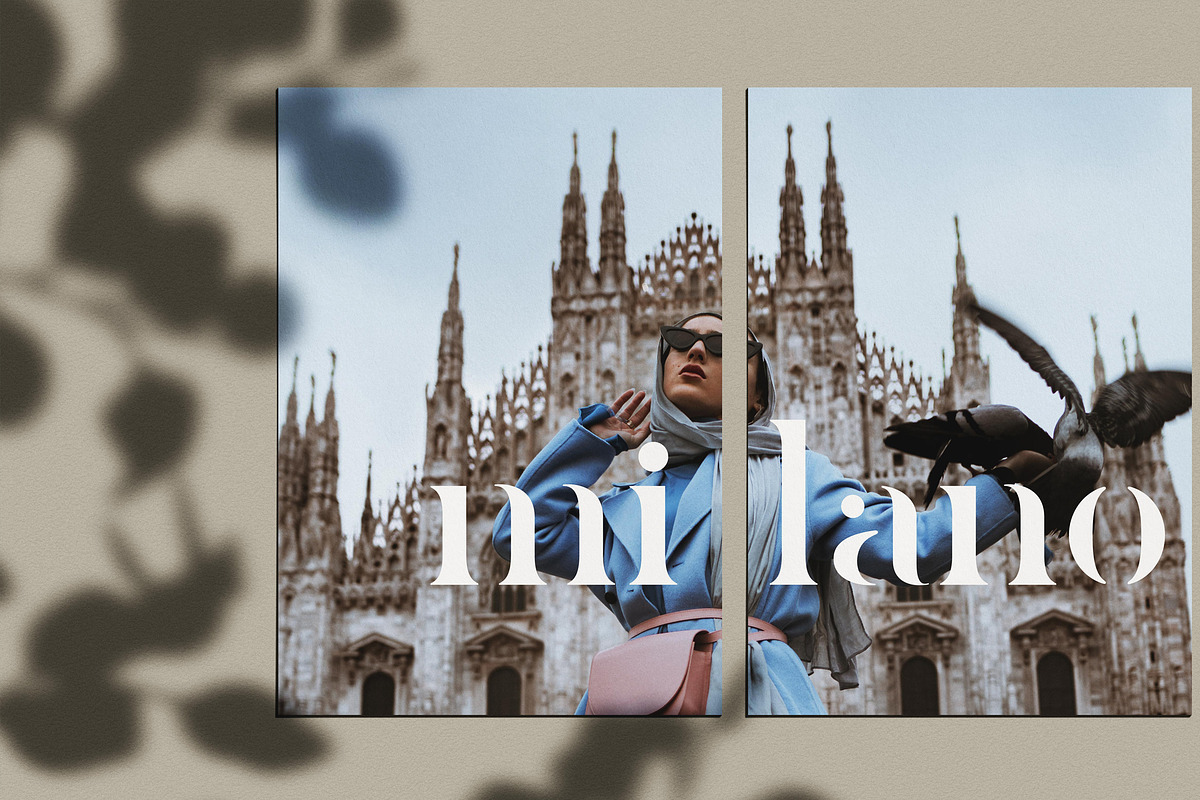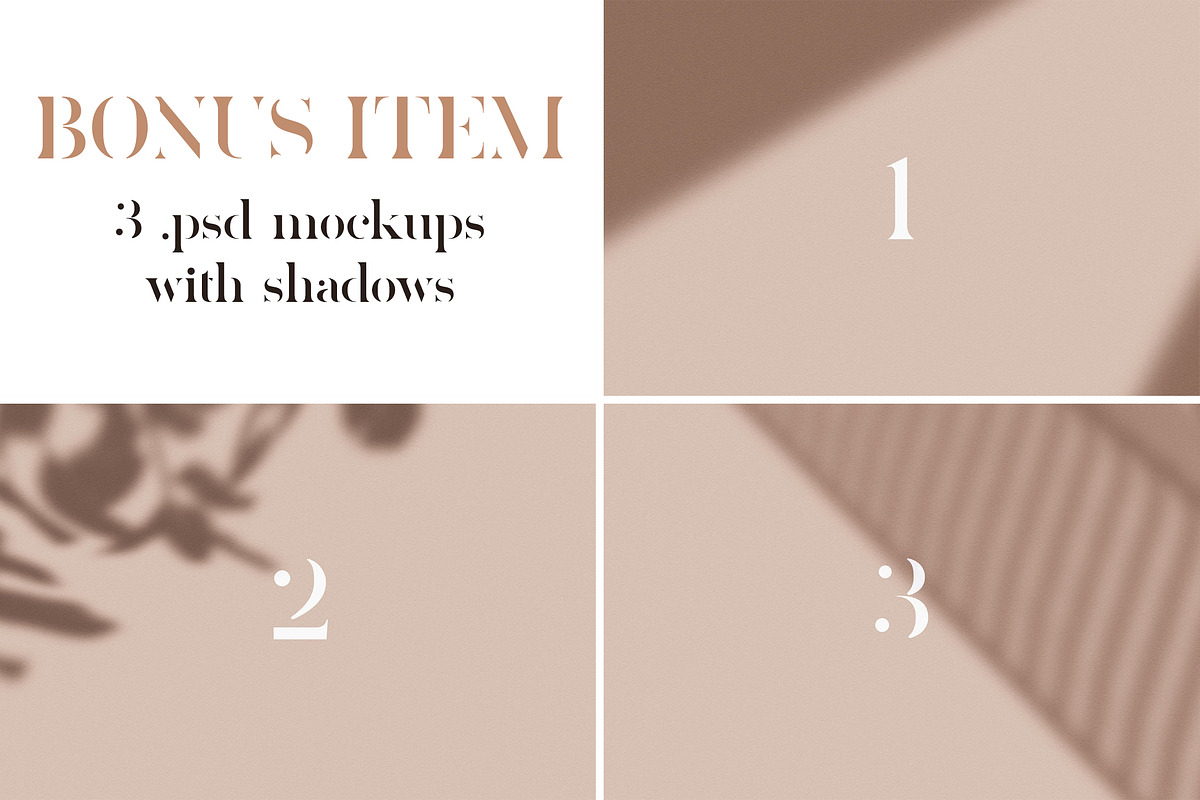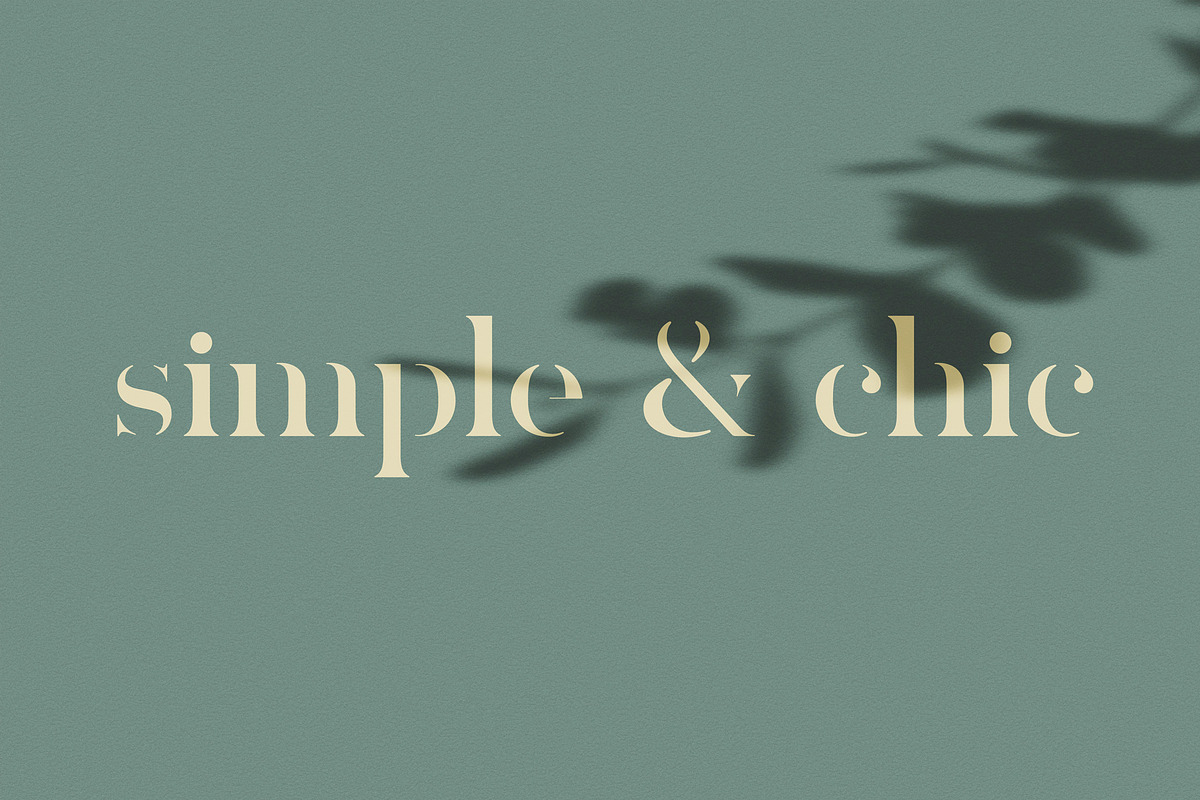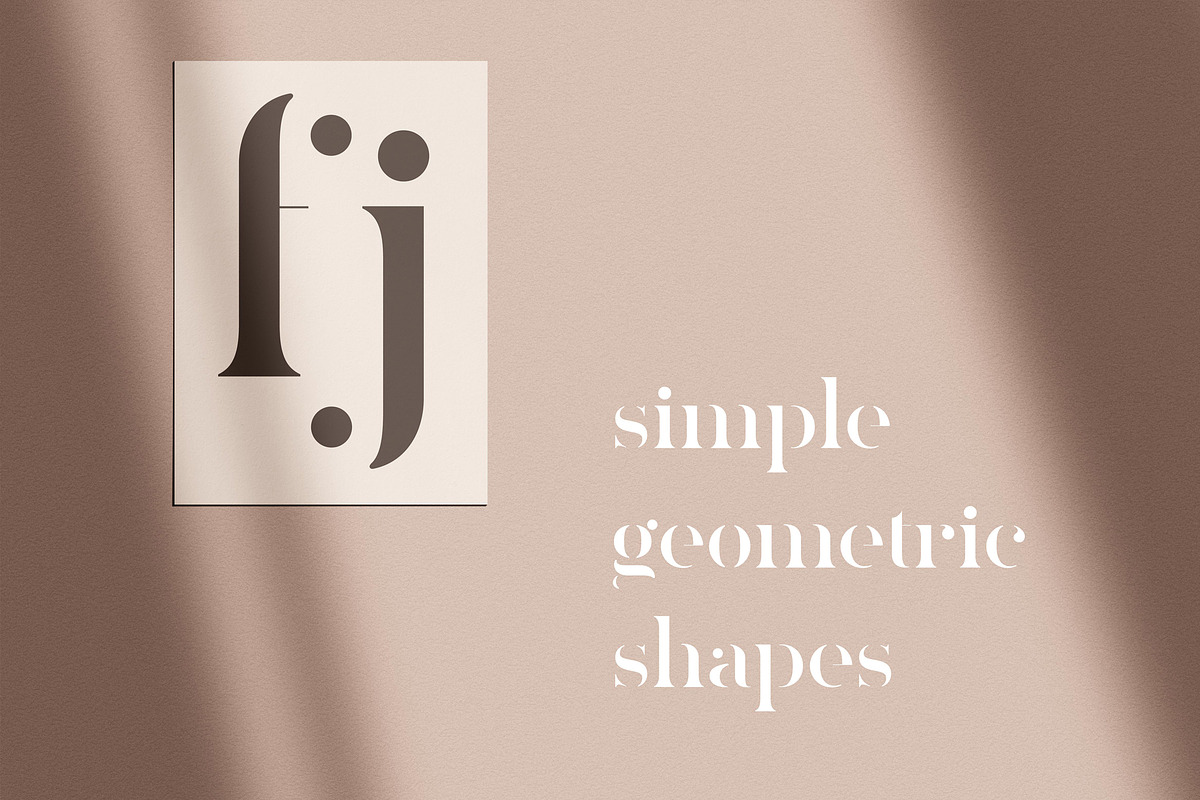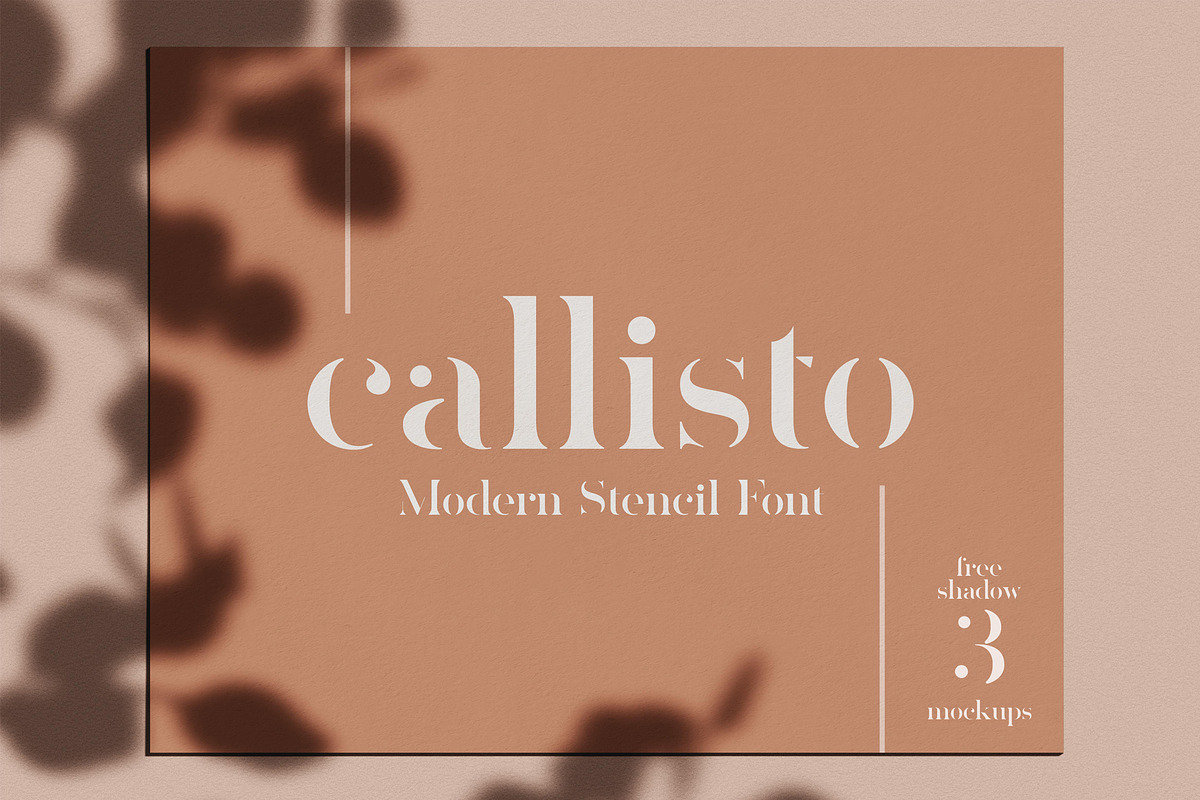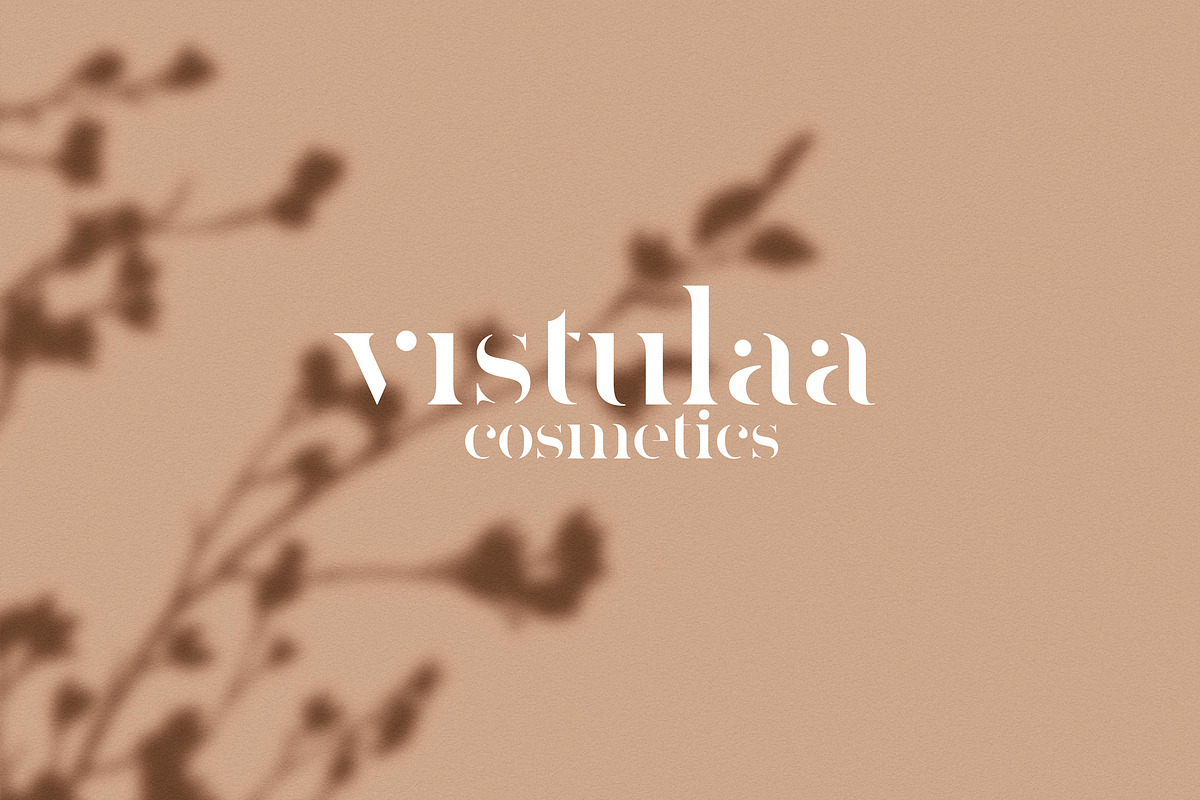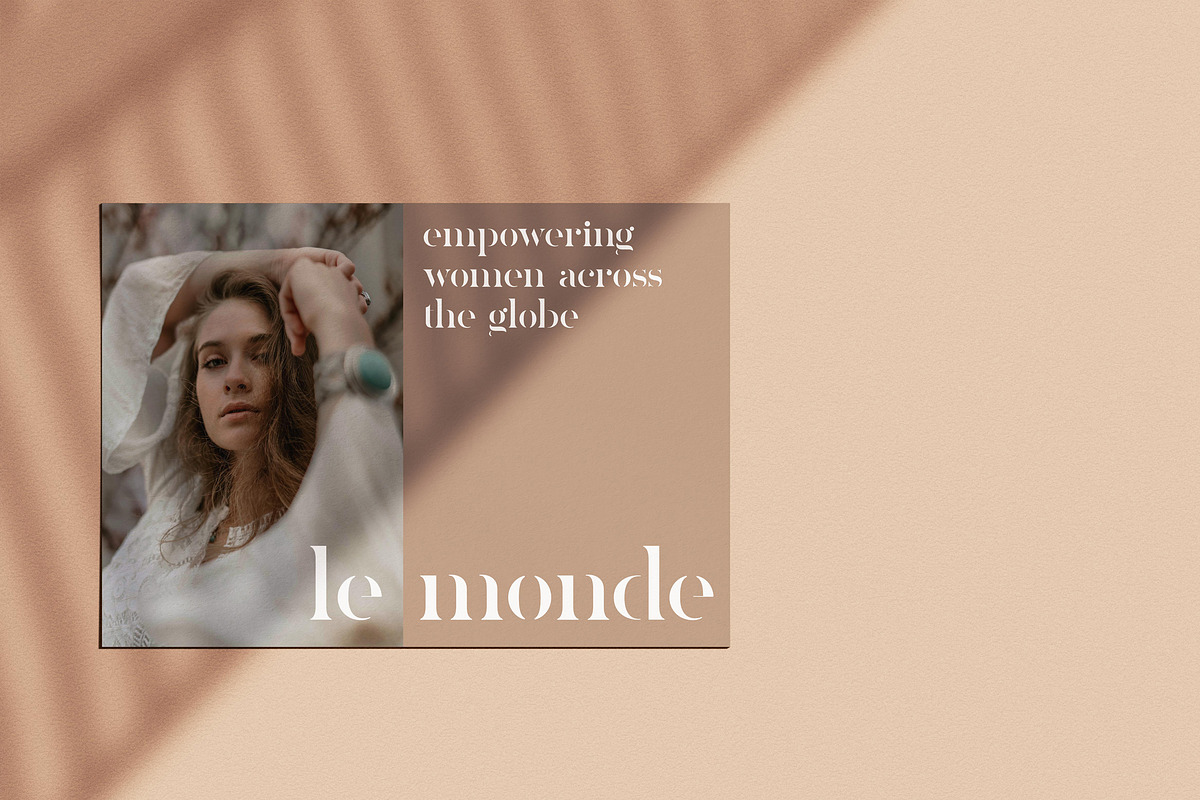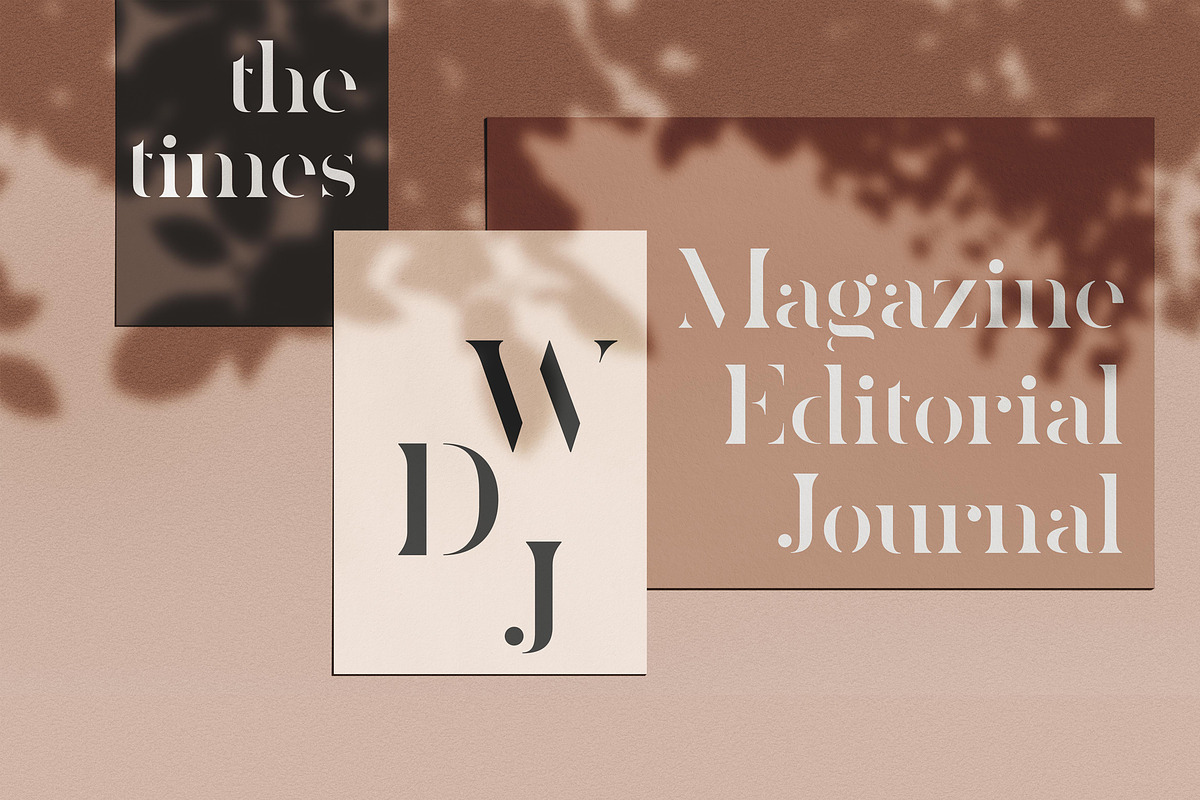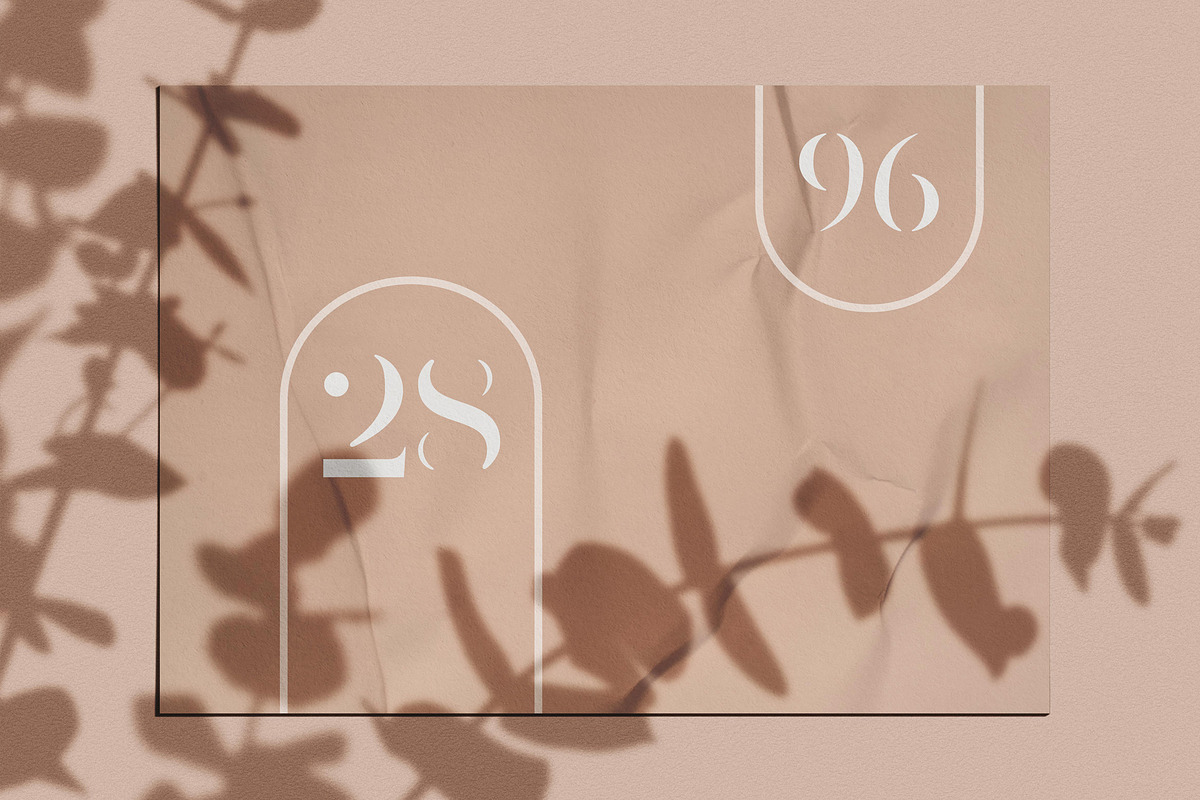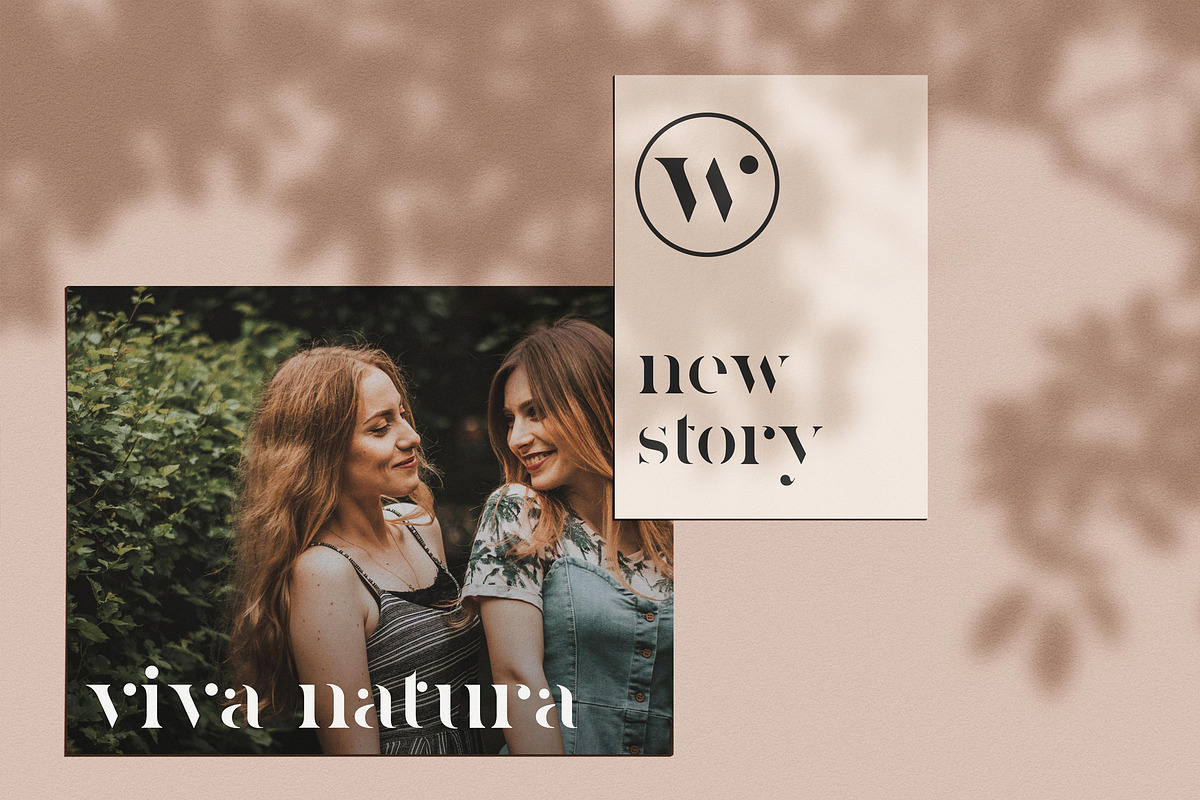
Callisto — Modern Stencil Font
Callisto is a very feminine and very legible serif stencil font that is perfect for blogging, fashion, art and much more. With two versions (Regular and Half, in which gaps are slightly smaller) included, it's a great tool for those who need a font with lots of character and style. Standing apart from your everyday stencil fonts, Callisto is great for magazine publishing, bloggers, and designers who wish to showcase their work.
• Uppercase
• Lowercase
• Ligatures (standard and discretionary)
• Multilingual Support